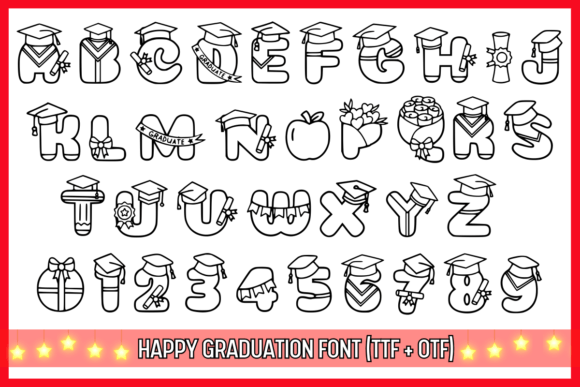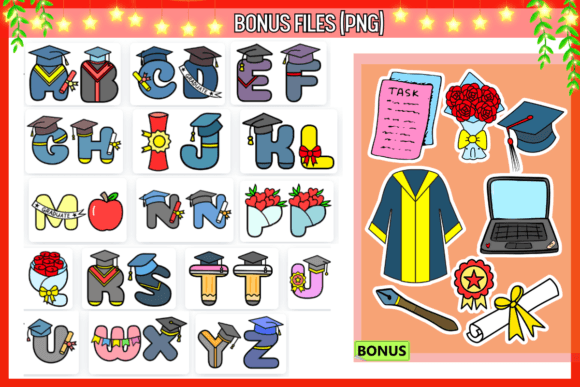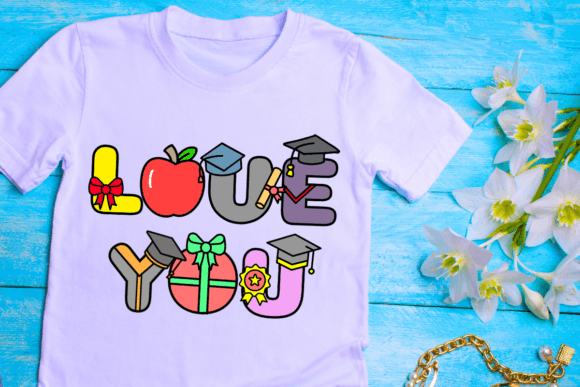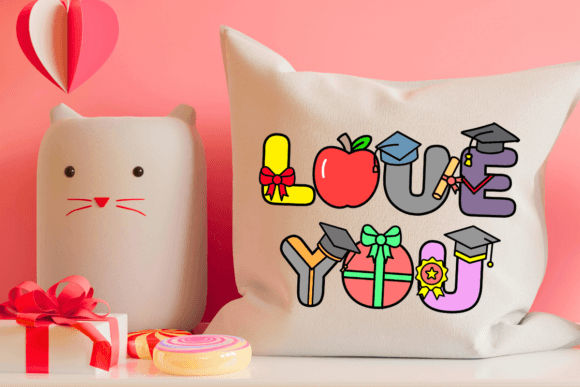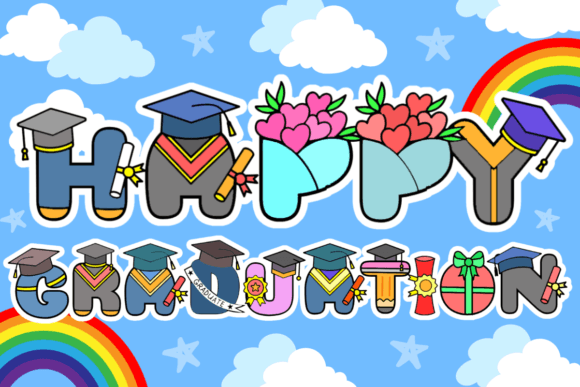
Happy Graduation Font: Celebrate Milestones with Fun and Decorative Style
Are you looking for a unique and playful way to celebrate graduations? Look no further than the “Happy Graduation” font, a fun and decorative font that will add a personal touch to your designs and projects. This delightful font features letters that resemble graduates, complete with caps and gowns, making it the perfect addition to any graduation-themed celebration.
What is the Happy Graduation Font?
The “Happy Graduation” font is a one-of-a-kind font that has been carefully designed to resemble graduates in their caps and gowns. Each letter is meticulously crafted to look like a graduate, making it a fun and whimsical way to celebrate graduations. The font comes with colorful PNG files, making it easy to use in a variety of designs and projects.
Key Features of the Happy Graduation Font
- Fun and Decorative: The “Happy Graduation” font is designed to be fun and decorative, making it perfect for celebrating graduations.
- Graduate-Themed Letters: Each letter is designed to look like a graduate, complete with caps and gowns.
- Colorful PNG Files: The font comes with colorful PNG files, making it easy to use in designs and projects.
- Easy to Use: The font is easy to use and can be incorporated into a variety of designs and projects.
Uses for the Happy Graduation Font
The “Happy Graduation” font is perfect for a variety of uses, including:
- Graduation Cards: Create personalized graduation cards with the “Happy Graduation” font.
- Party Decorations: Use the font to create fun and decorative party decorations, such as banners and garlands.
- Social Media Posts: Add a personal touch to social media posts celebrating graduations.
- DIY Projects: Incorporate the font into DIY projects, such as scrapbooking and crafting.
The “Happy Graduation” font offers a range of benefits for designers and crafters, including:
- Unique and Playful Design: The font offers a unique and playful design that will add a personal touch to designs and projects.
- Easy to Use: The font is easy to use and can be incorporated into a variety of designs and projects.
- Customization Options: The font comes with colorful PNG files, allowing for customization options.
Tips for Using the Happy Graduation Font
Here are some tips for using the “Happy Graduation” font:
- Use Bright and Bold Colors: Use bright and bold colors to make the font stand out.
- Experiment with Different Layouts: Experiment with different layouts and designs to make the most of the font.
- Pair with Other Fonts: Pair the font with other fonts to create a unique and personalized look.
The “Happy Graduation” font is a fun and decorative font that is perfect for celebrating graduations. With its unique and playful design, easy-to-use format, and customization options, it’s a great addition to any design or project. Whether you’re a designer or crafter, this font is sure to inspire creativity and add a personal touch to your work.